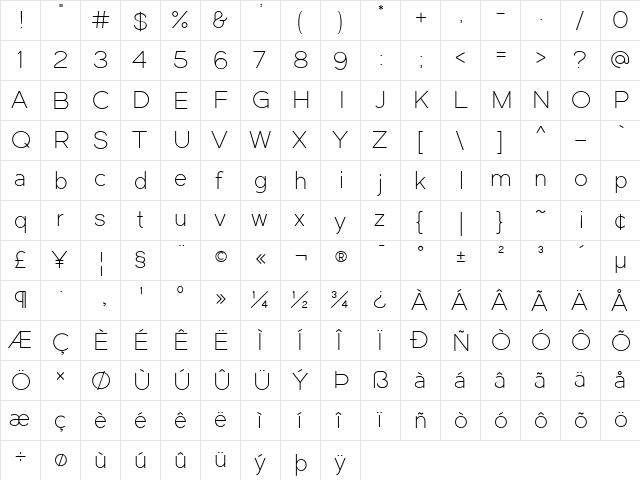
Dual 300
| Foundry | Charles Daoud |
| Designer | Charles Daoud |
Design Context for Dual Typeface
Dual is a composed and adaptable typeface that performs quietly and consistently across a wide range of design contexts.